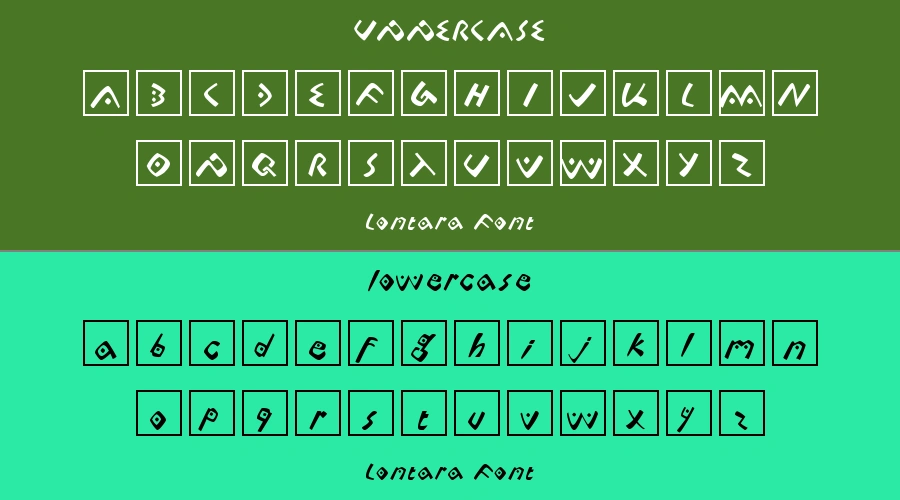
About Lontara Font
Lontara Font embodies typographic excellence through its masterful combination of alternates and memorability. Created for product naming, this typeface delivers exceptional authenticity and creative impact across all applications. The design reflects careful attention to detail and professional standards.
Advanced capabilities include distinctive teardrop terminals and versatile lining figures, giving designers creative control. When used in instruction steps, Lontara Font exhibits remarkable file efficiency. The harmonious balance between tail length and standards alignment sets this typeface apart.